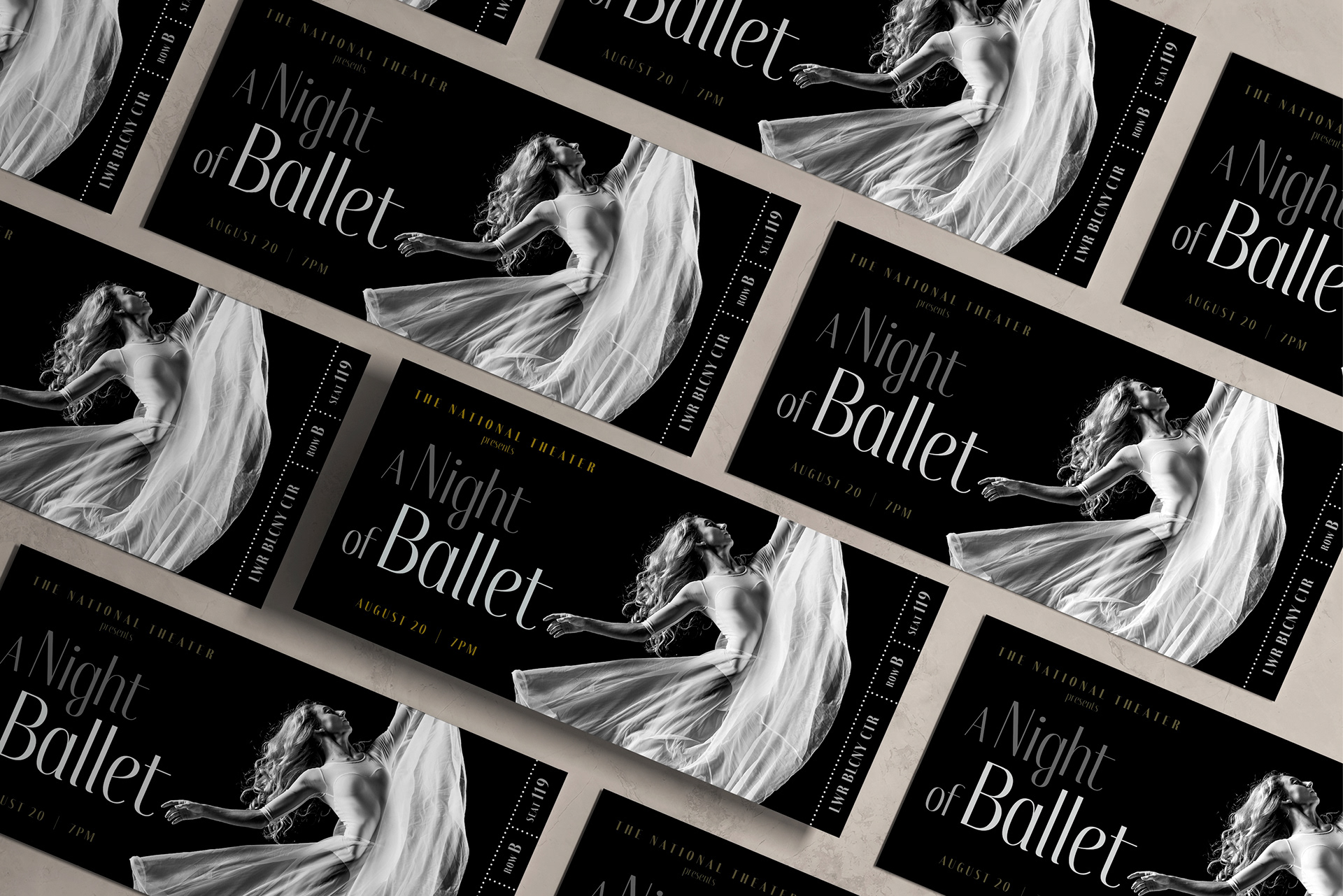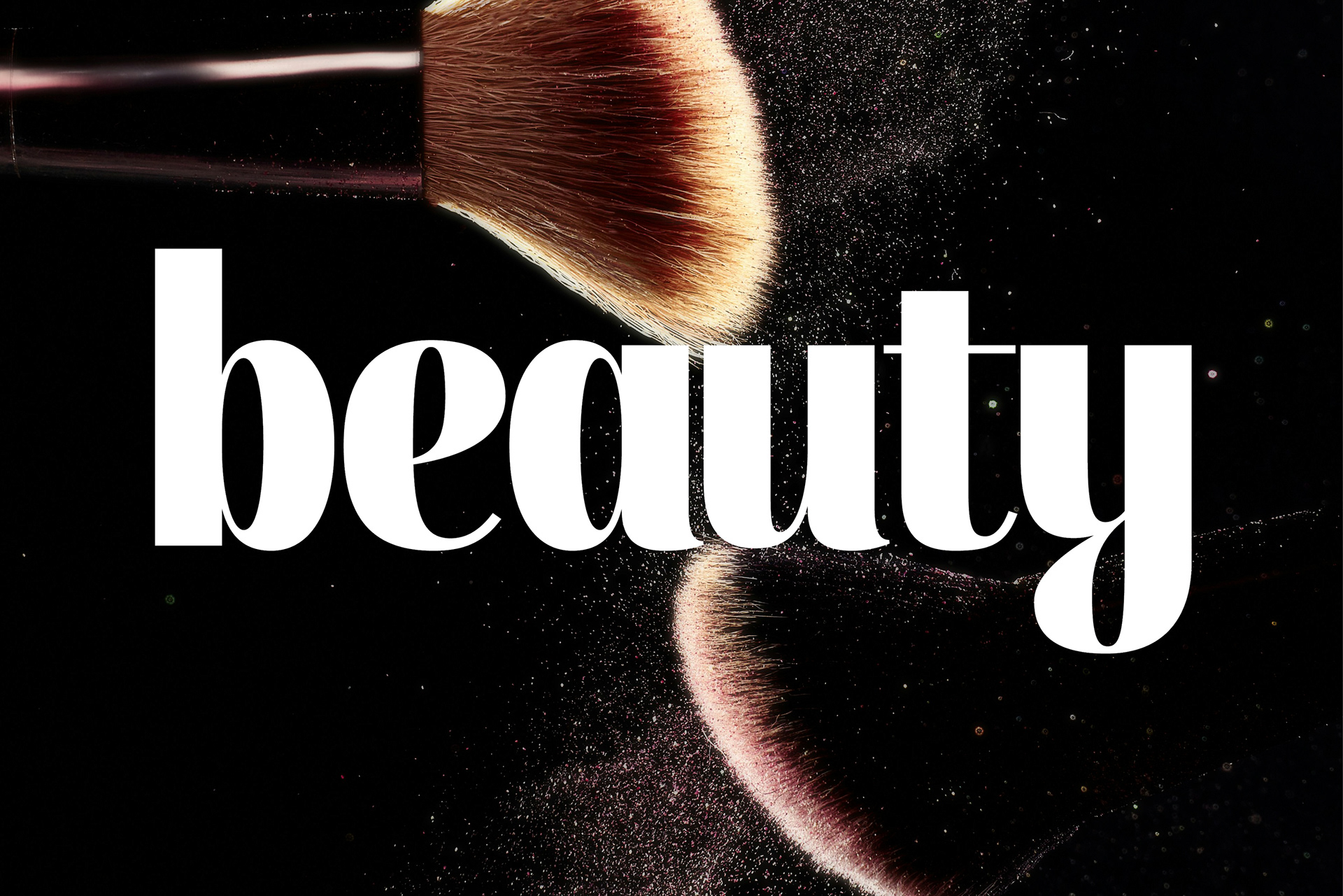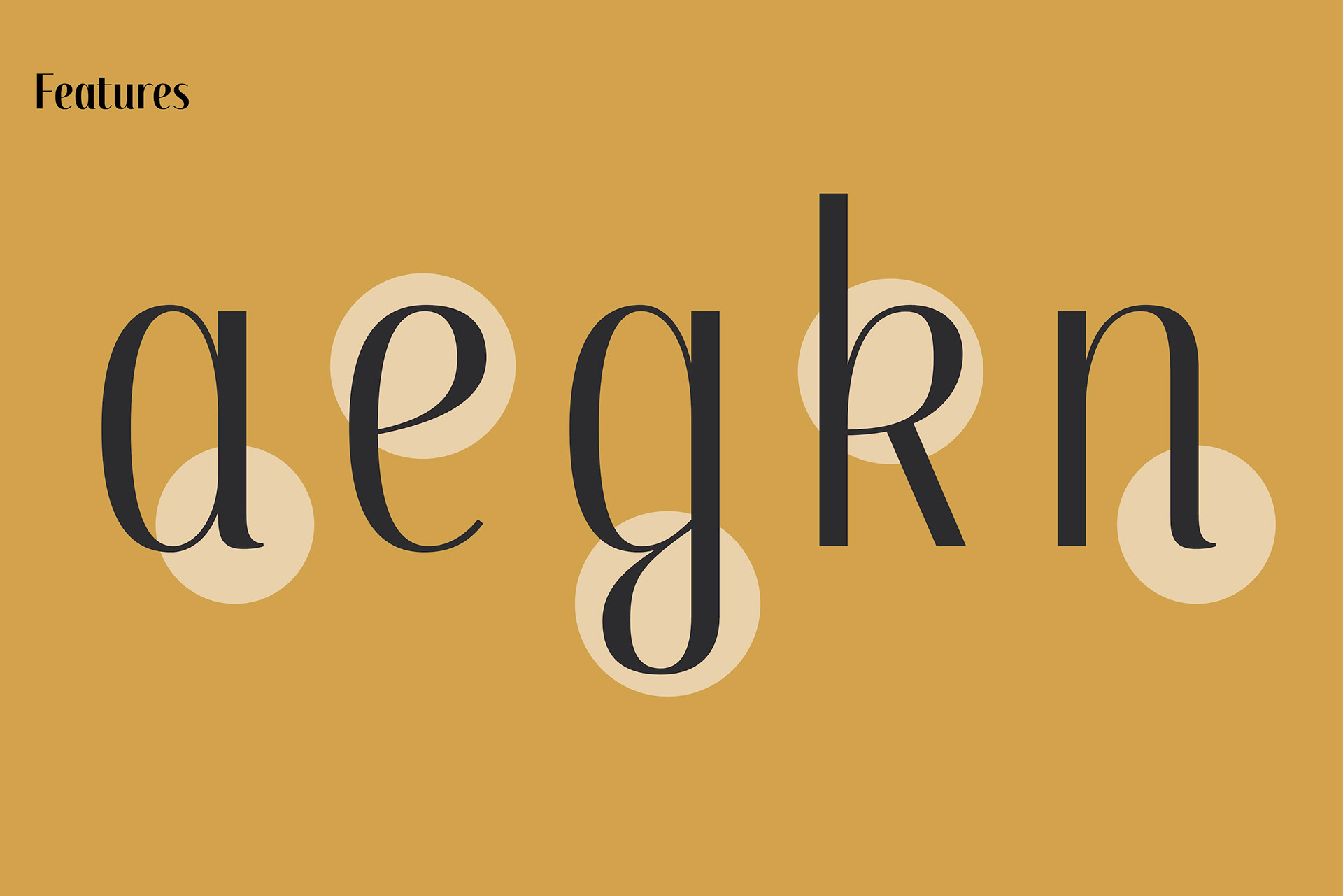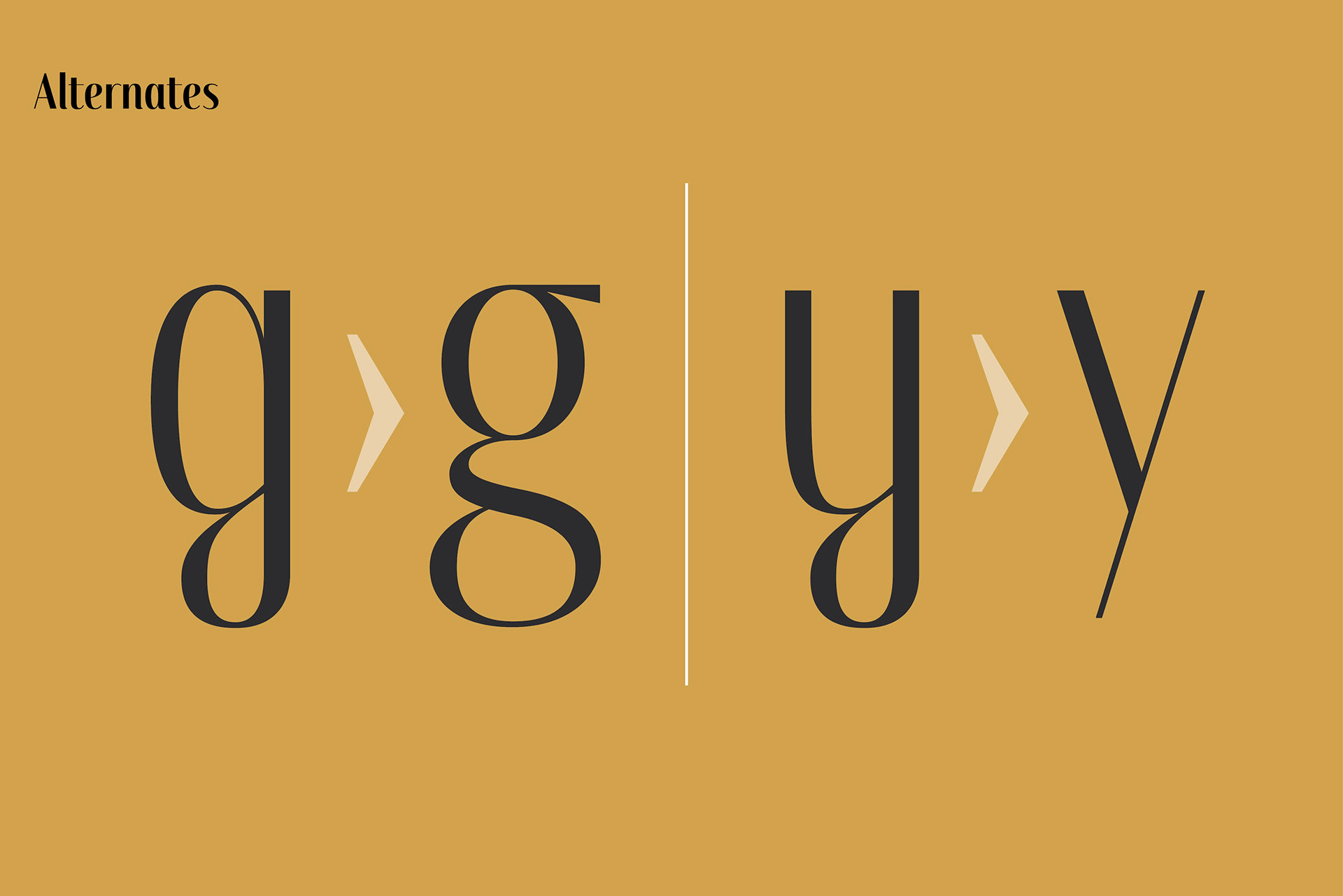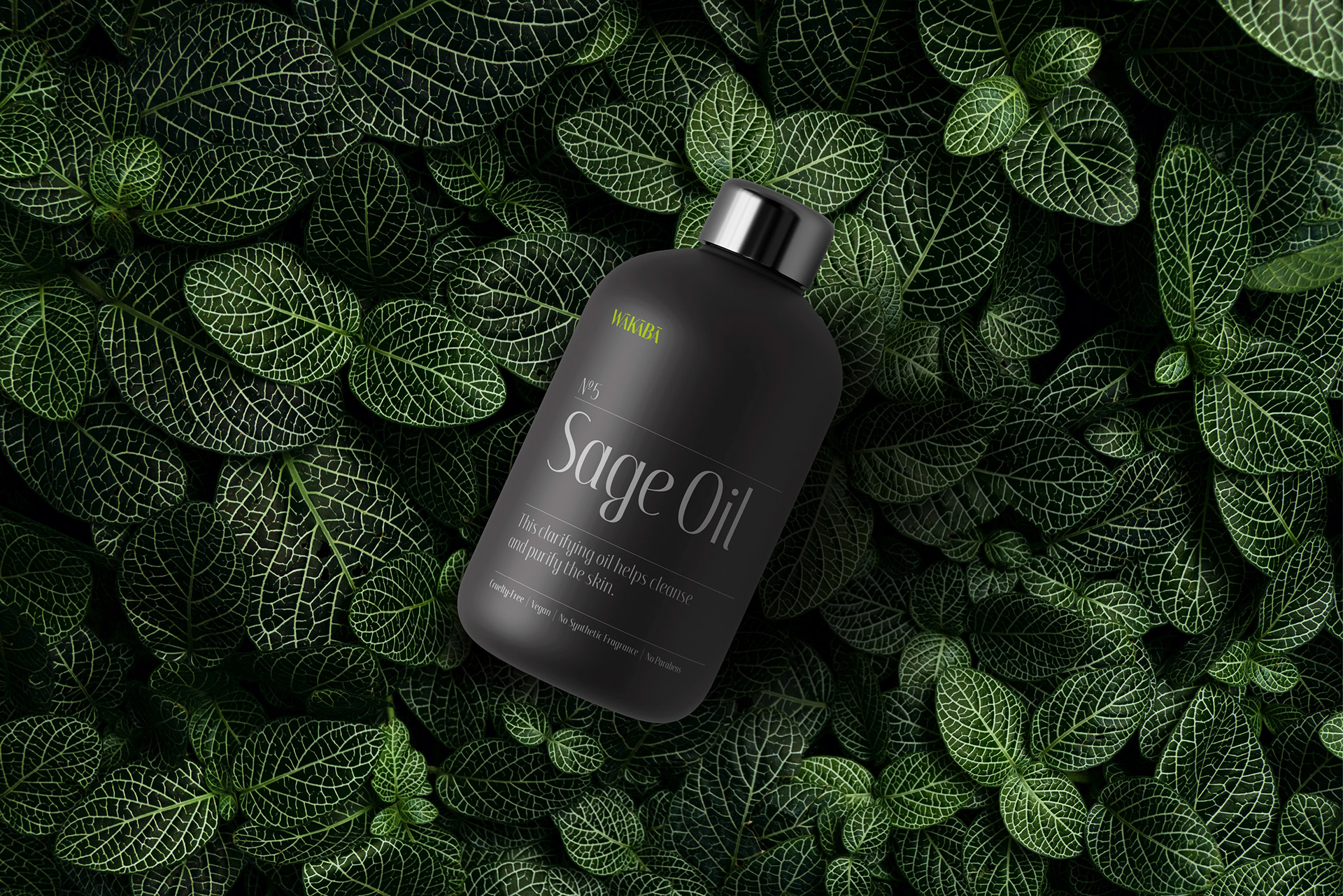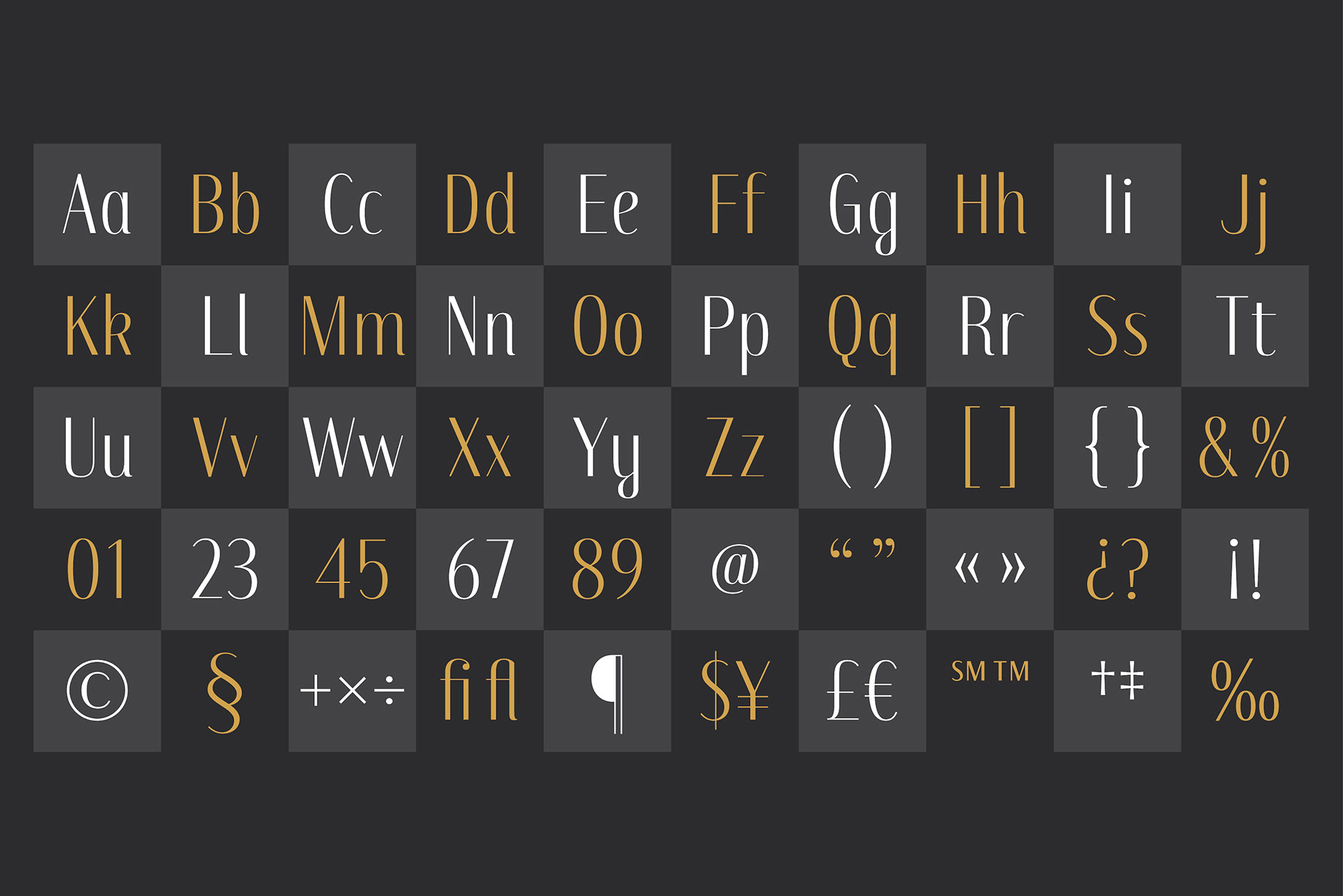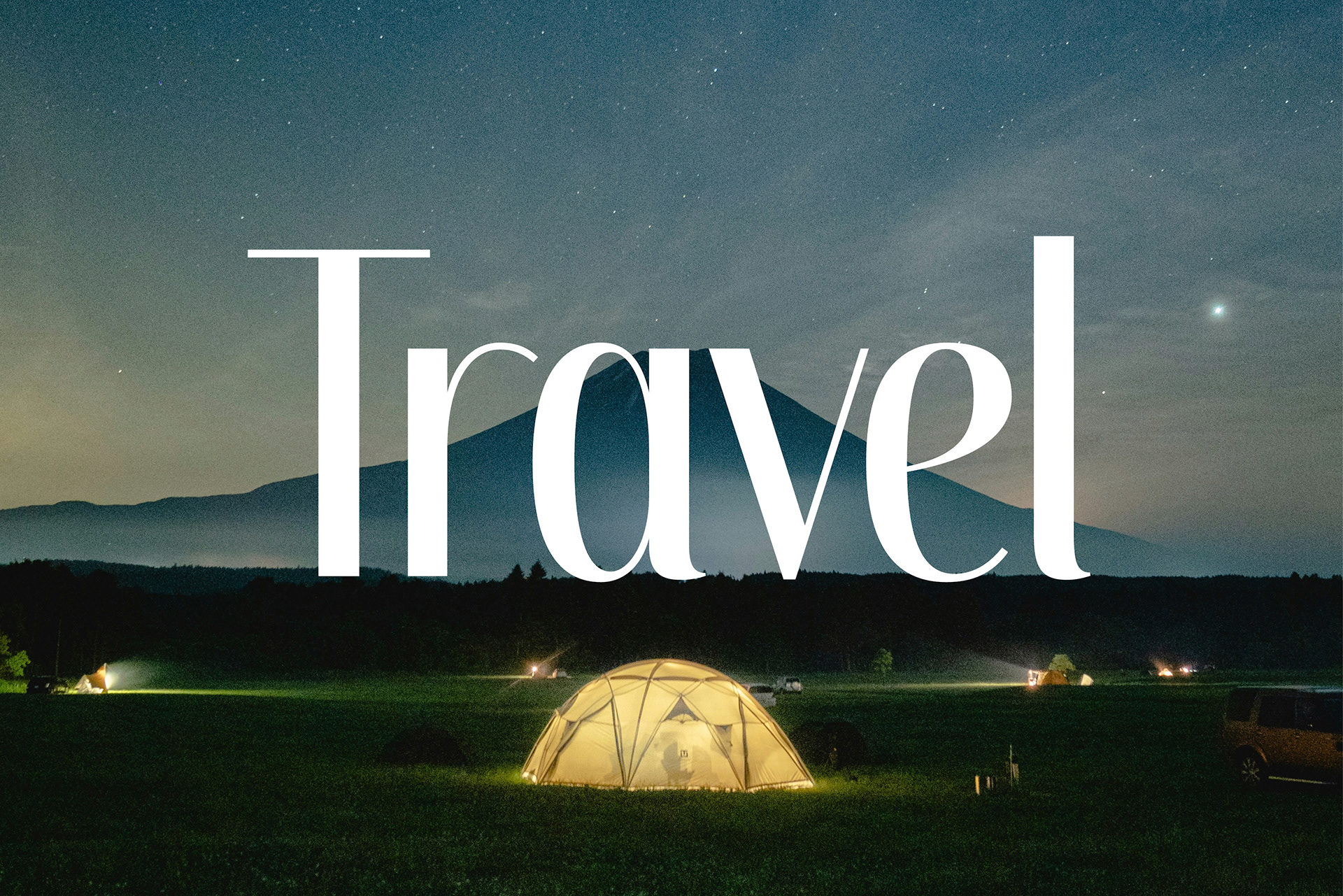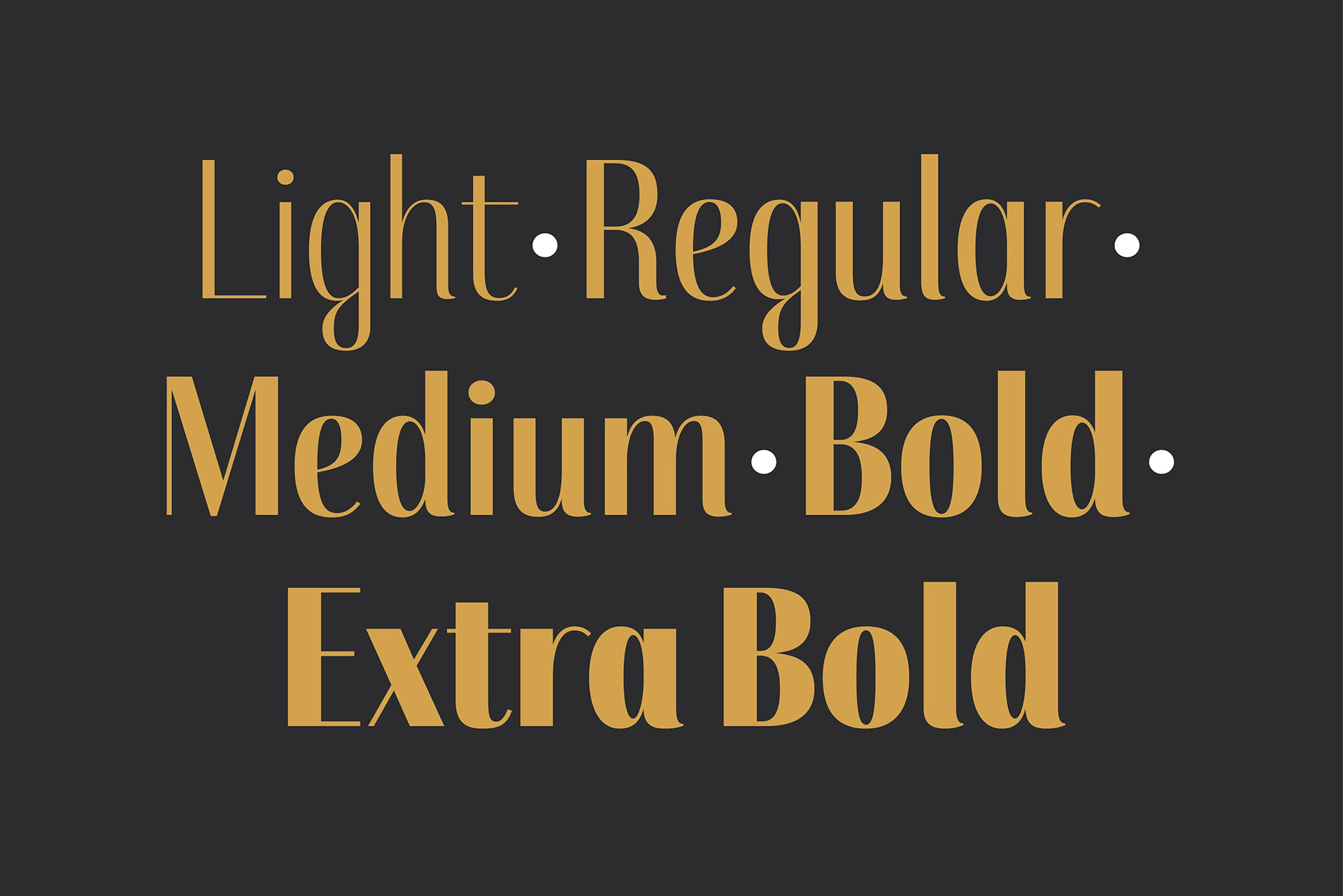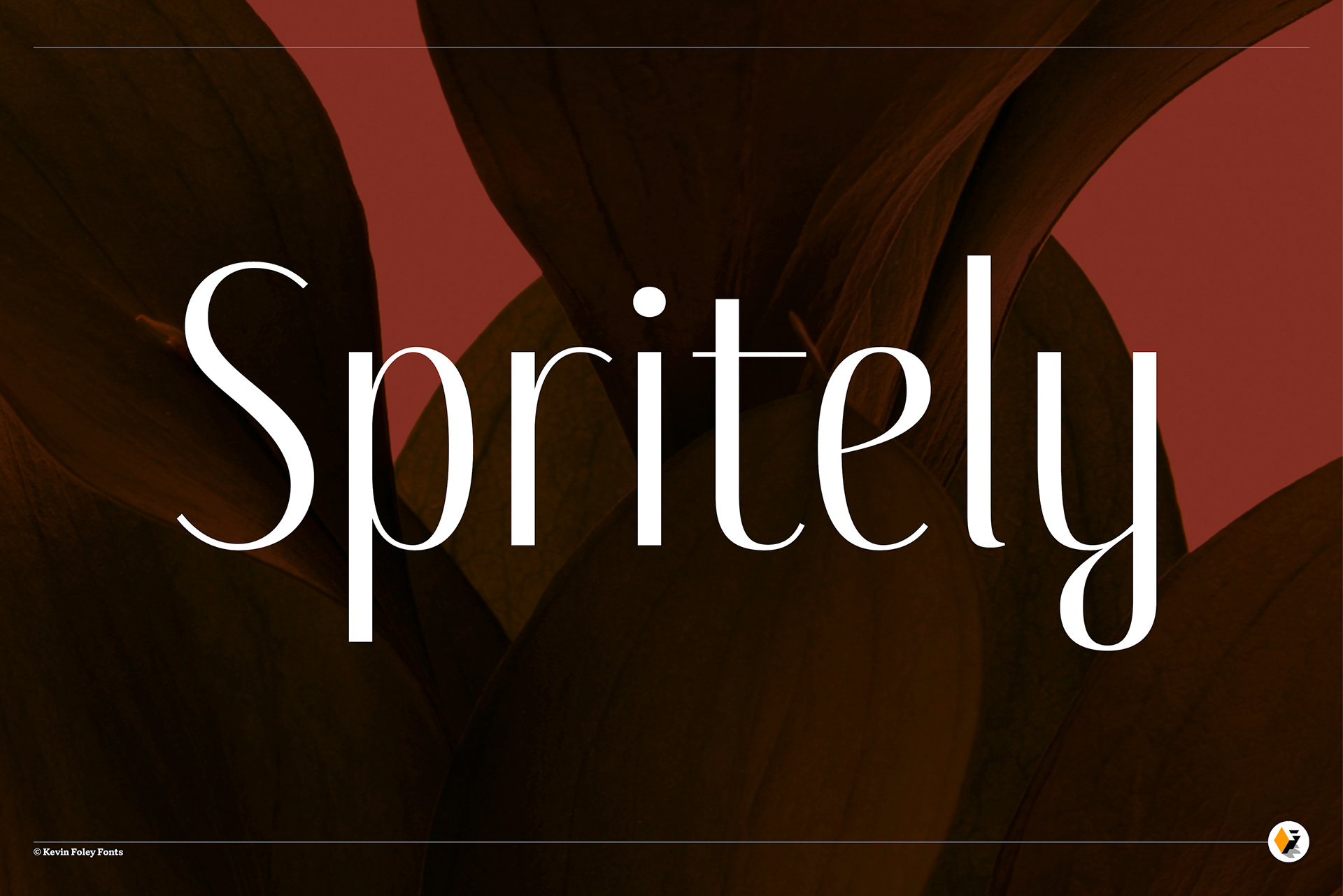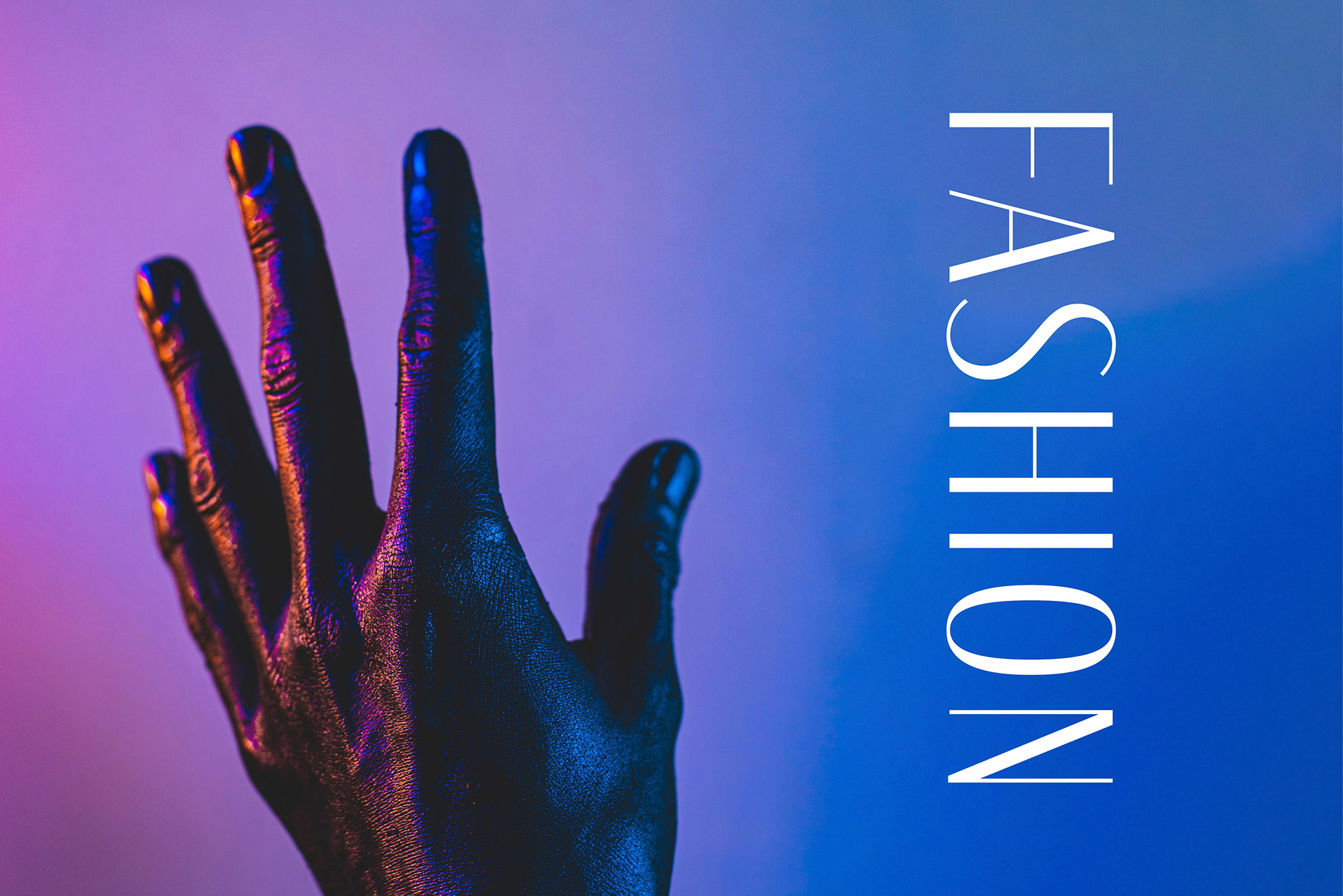
Spritely — Elegant Condensed Display Font
Spritely is a condensed, high-contrast sans for use in display sizes—cursive-like terminals and looped glyphs give it a lively, elegant feel. Perfect for fashion, beauty, travel, entertainment and other premium-brand applications. Spritely was conceived during a type design workshop while experimenting with the pointed pen—I began adding calligraphic-inspired finials and script-like elements that ultimately gave Spritely its voice. Available on Creative Market and MyFonts with full commercial licensing. Features extensive multilingual support plus complete Vietnamese typography coverage. Professional OpenType features include alternate glyphs for display use.